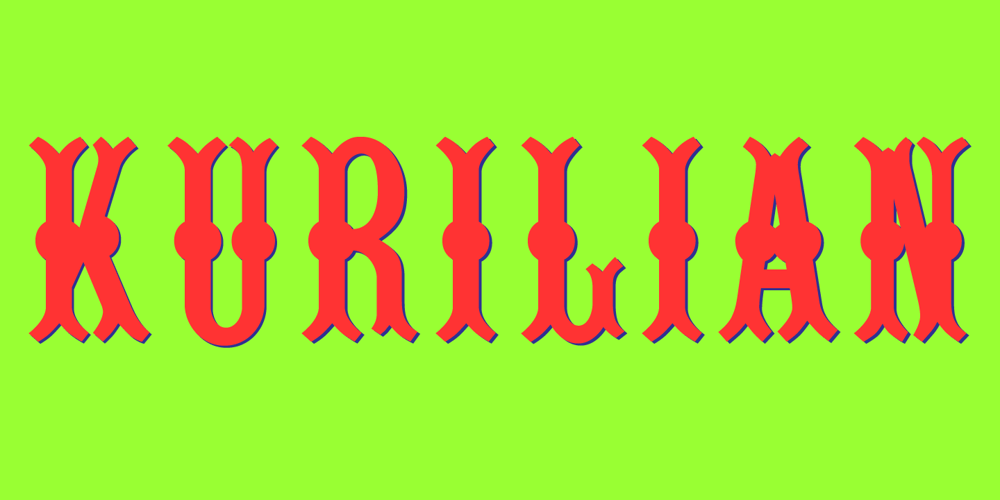
Kurilian
Kurilian font
Kurilian Font Family was designed by Jordan Davies, Heber Wells and published by Wooden Type Fonts. Kurilian contains 1 styles and family package options. A very unusual type based on wooden type designs of the 19th century, lacking lower case which may not have been designed for this font.